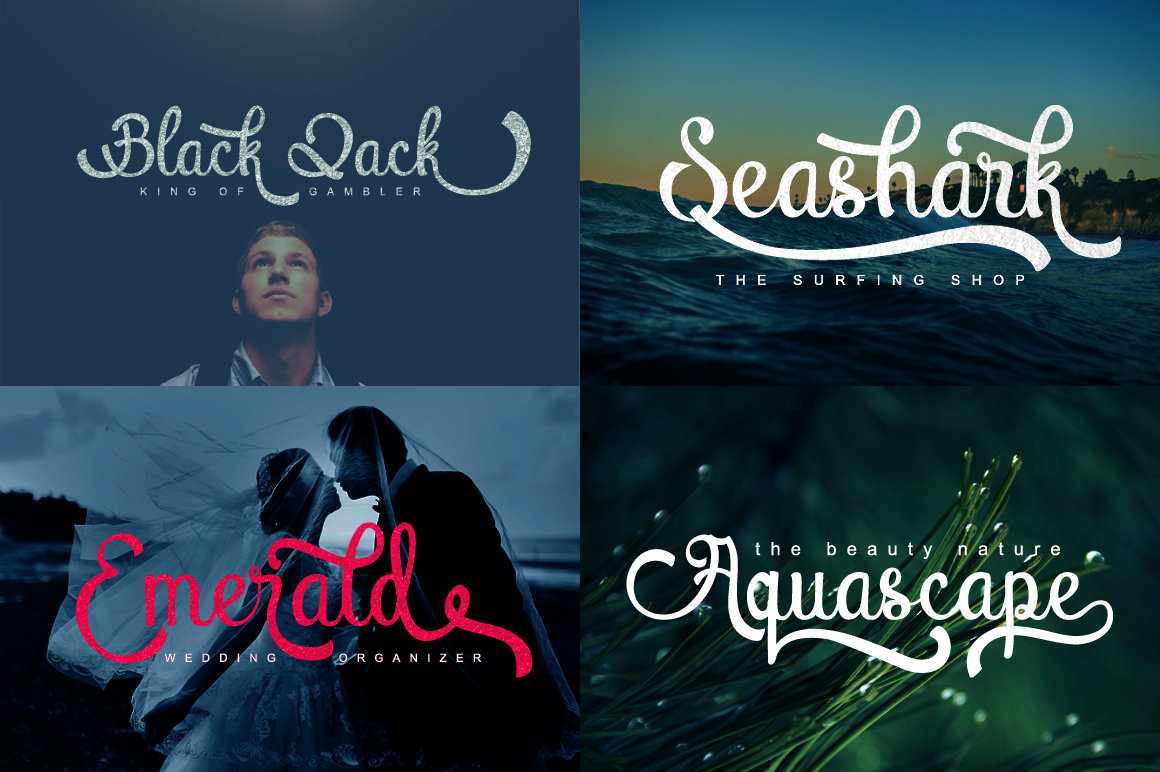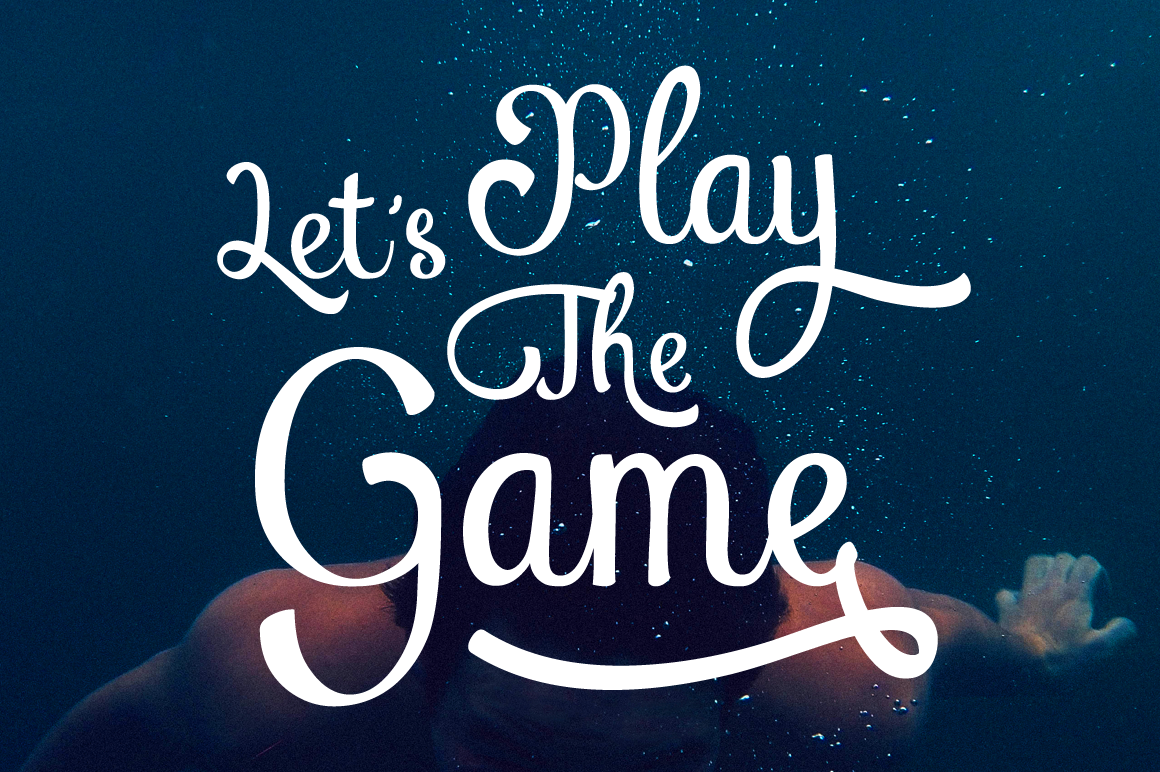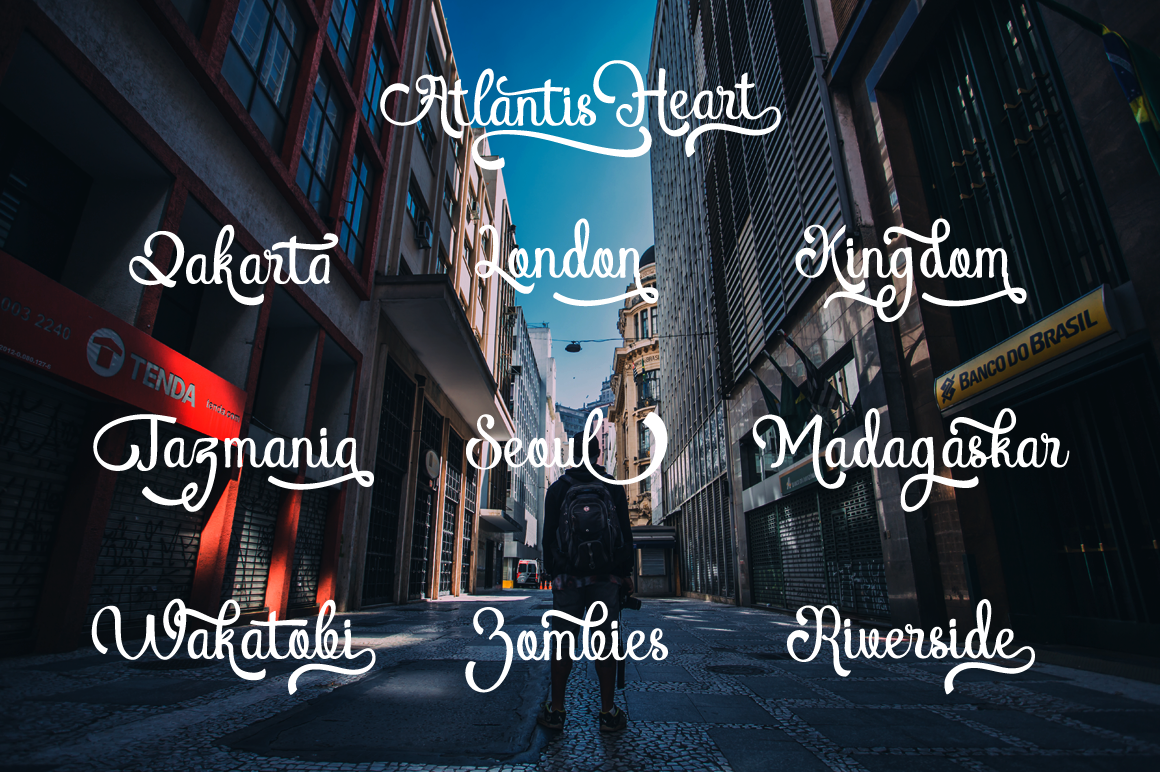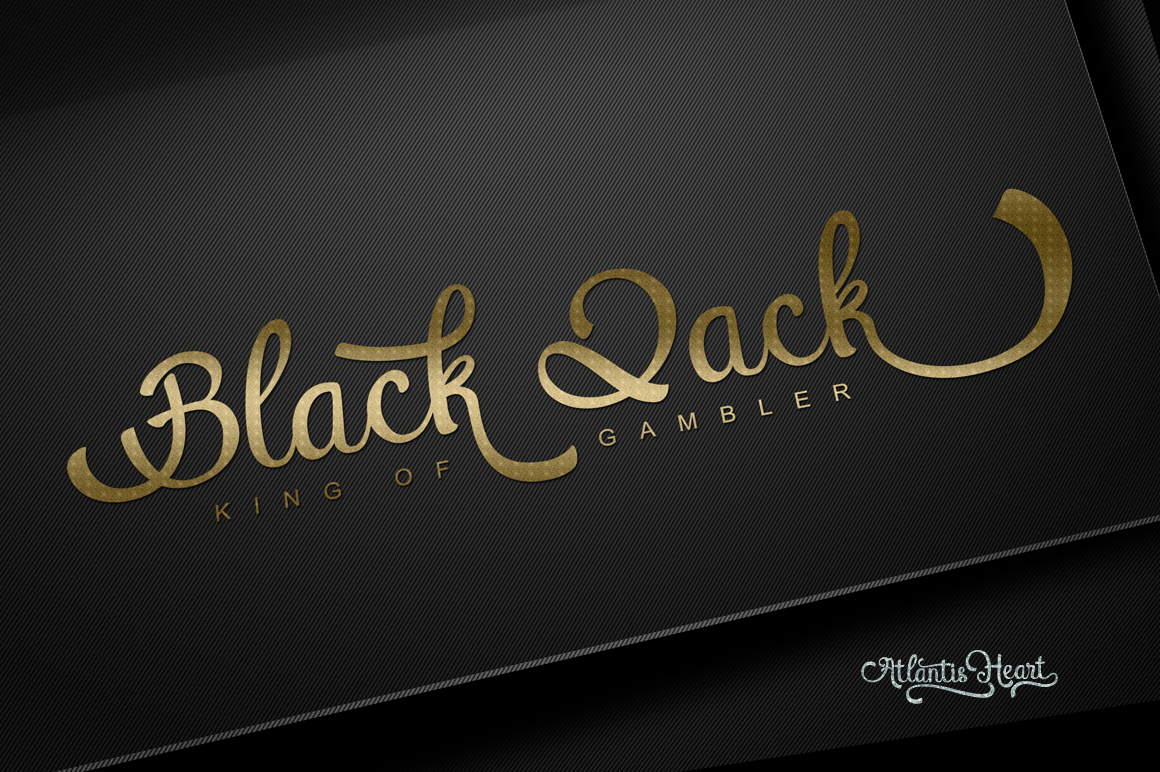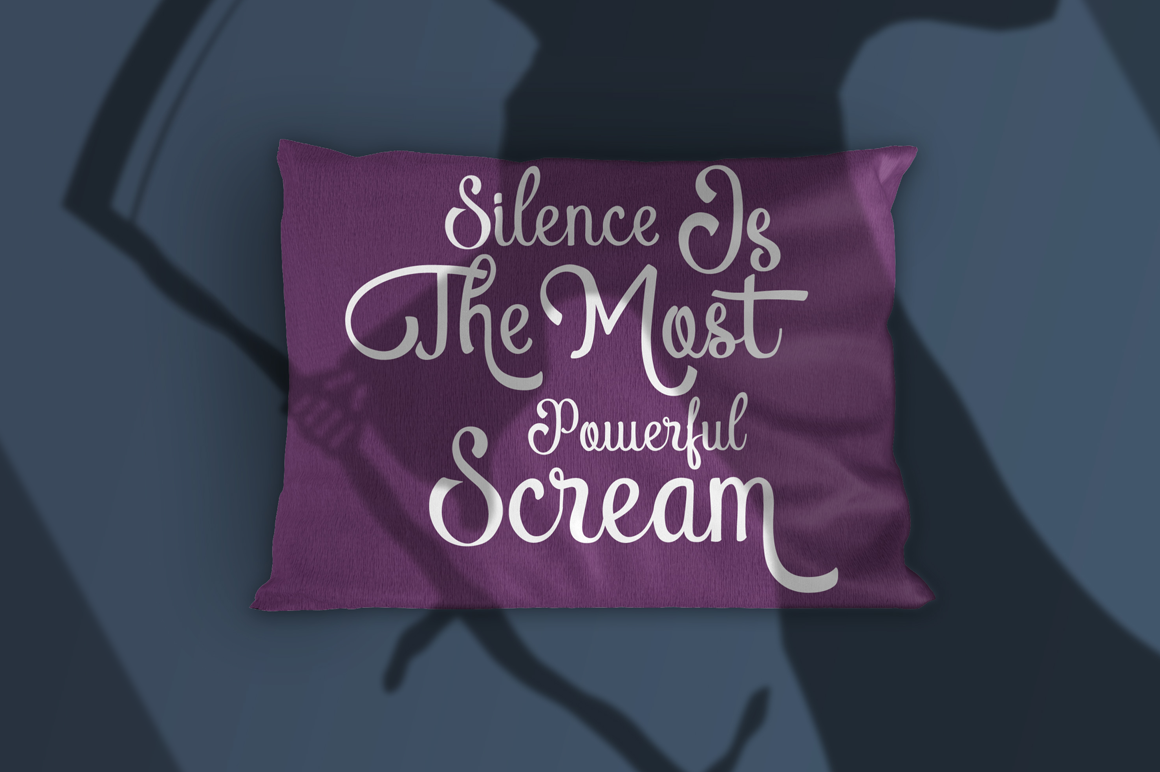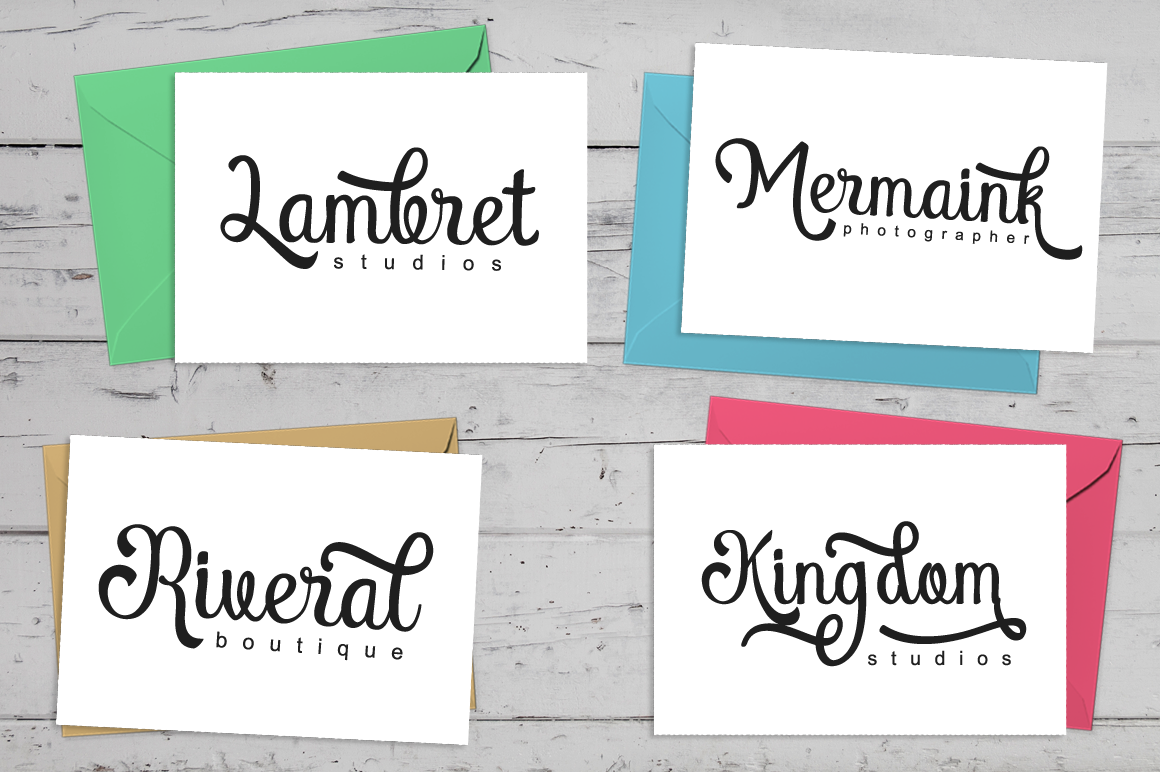
The Quest for the Perfect Font: Discovering Atlantis Heart
I’ll never forget the time I was working on a wedding invitation project, and my client asked for a font that was both elegant and playful. I scoured the internet, tried out dozens of fonts, but nothing seemed quite right. That was until I stumbled upon Atlantis Heart, a beautiful brush typeface that stole my heart. In this article, I’ll share my experience with this amazing font, and explore its features, uses, and alternatives.
A First Impression: What I Love About Atlantis Heart
Atlantis Heart is a unique and authentic brush typeface that has captured my heart. Here are some things I love about it:
- ✨ Elegant and sophisticated, yet playful and whimsical
- ✅ Highly versatile, suitable for a wide range of design purposes
- 💕 Beautifully crafted, with a distinctive brush-like feel
- 🎨 Perfect for creating eye-catching headlines, titles, and quotes
Honest Review: The Not-So-Perfect Font
While Atlantis Heart is an amazing font, it’s not without its quirks. Here are a few things to keep in mind:
- 🤔 Some characters may appear a bit inconsistent in size or shape, which can affect readability at smaller font sizes
- ⚠️ The font may not be suitable for body text or long blocks of text, as it can be a bit tiring to read
One of the best things about Atlantis Heart is its OpenType features and glyphs. These allow you to add more creativity and personality to your design. Some of the features you can expect to find include:
- Ligatures: special character combinations that create a unique look
- Stylistic alternates: alternative characters that offer a different look or feel
- Swashes: decorative flourishes that add a touch of elegance
The Story Behind Atlantis Heart
Atlantis Heart was designed by a talented type designer who’s passionate about creating unique and beautiful fonts. The story goes that the designer was inspired by the myth of Atlantis, a lost city said to be hidden beneath the waves. The font’s brush-like feel and elegant lines are meant to evoke the mystery and romance of this legendary place.
- Q: Is Atlantis Heart suitable for body text?
- A: While Atlantis Heart is a beautiful font, it’s not ideal for body text. It’s best used for headlines, titles, and short blocks of text.